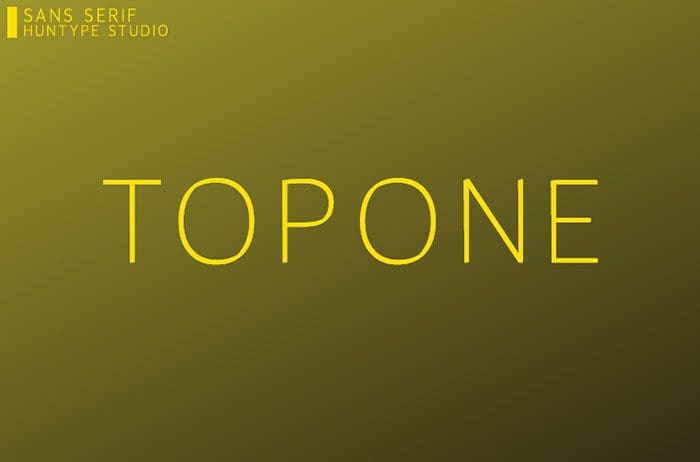
Topone Sans Serif Font
Topone simplifies elegance into one truly outstanding sans serif font. Whether you’re looking for fonts for Instagram or calligraphy scripts for DIY projects, this font will turn any creative idea into a true piece of art! Thanks to Mas Anis for sharing this font! Take a look at this portfolio for more of his stunning fonts.